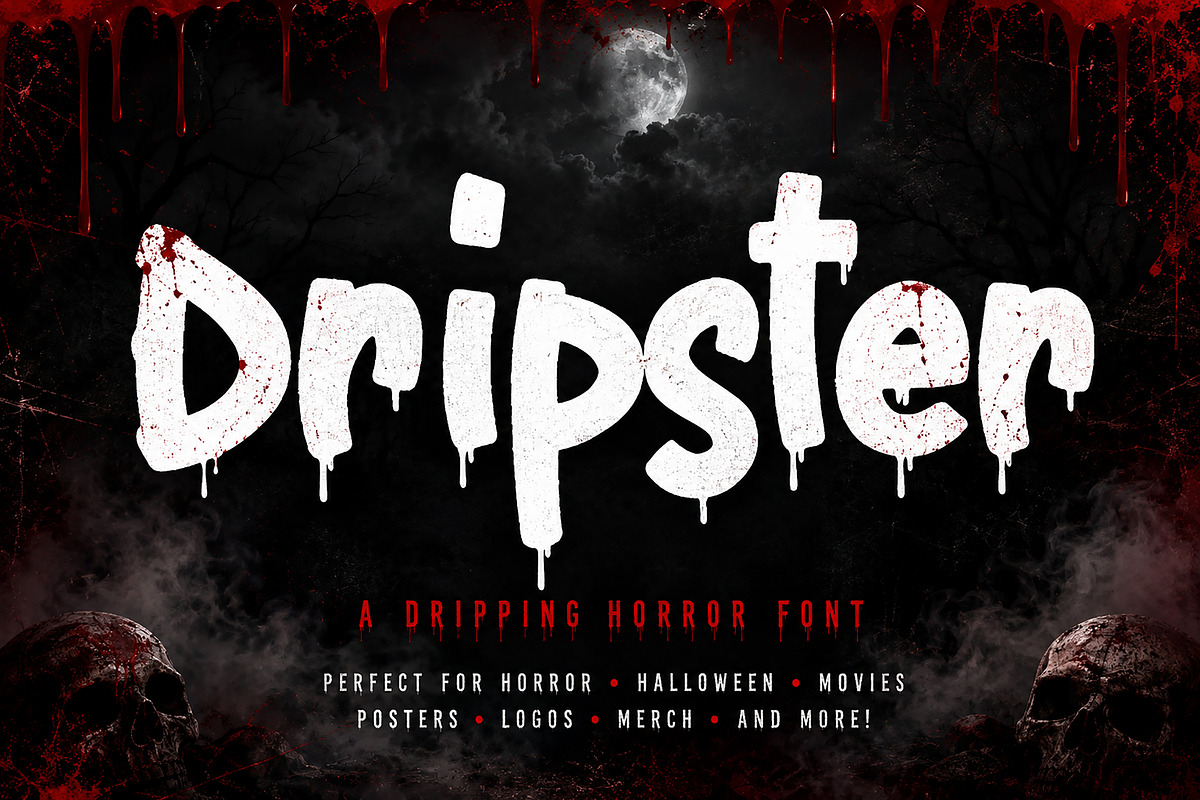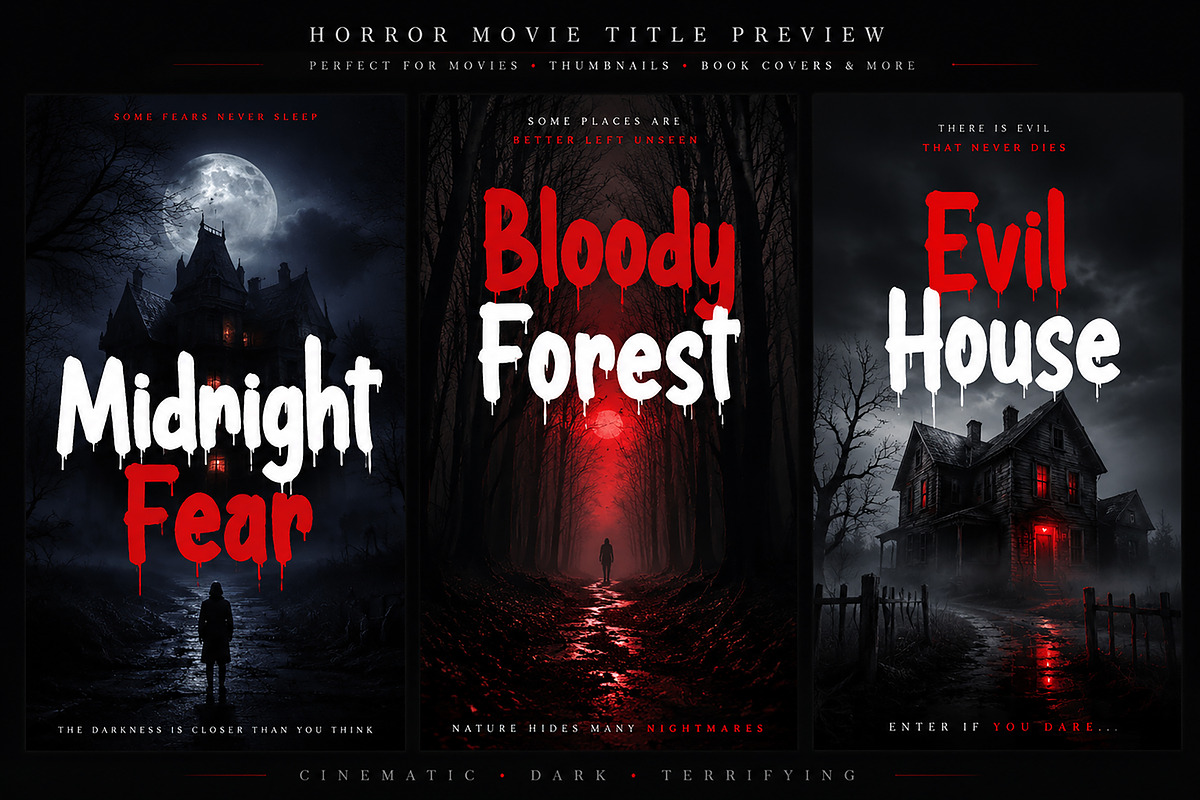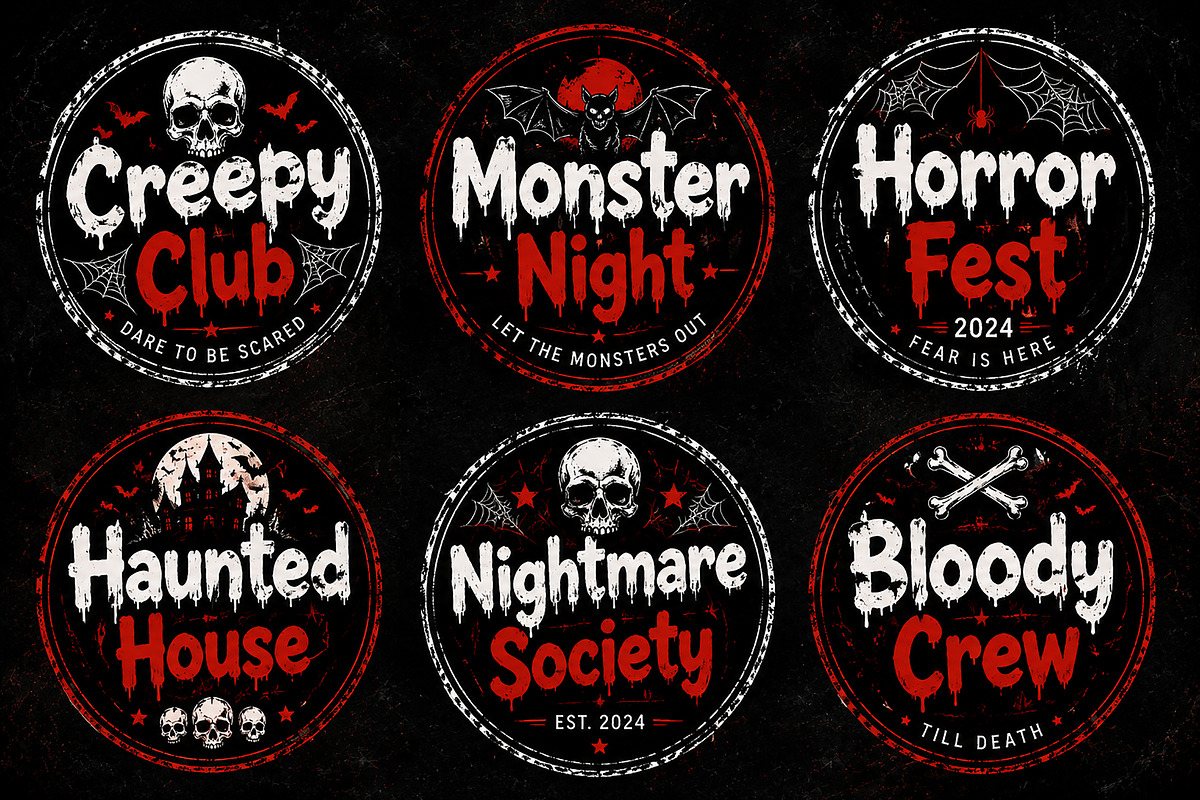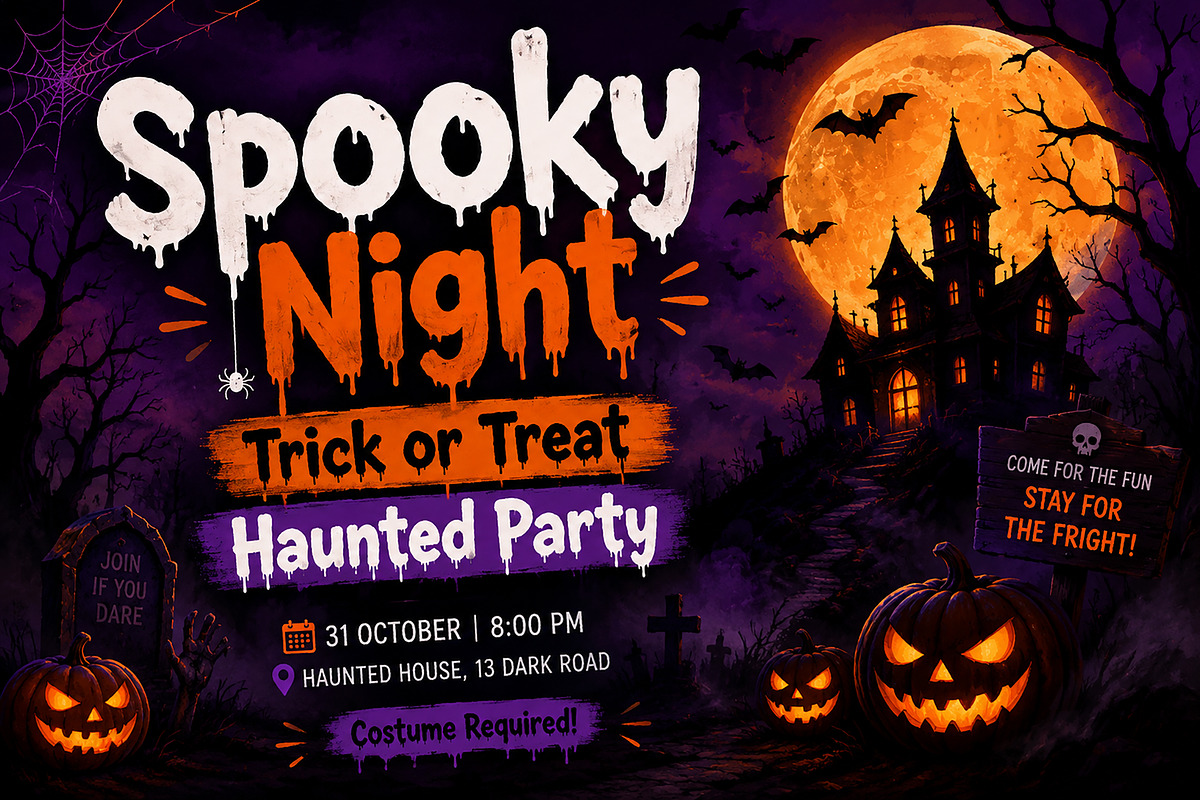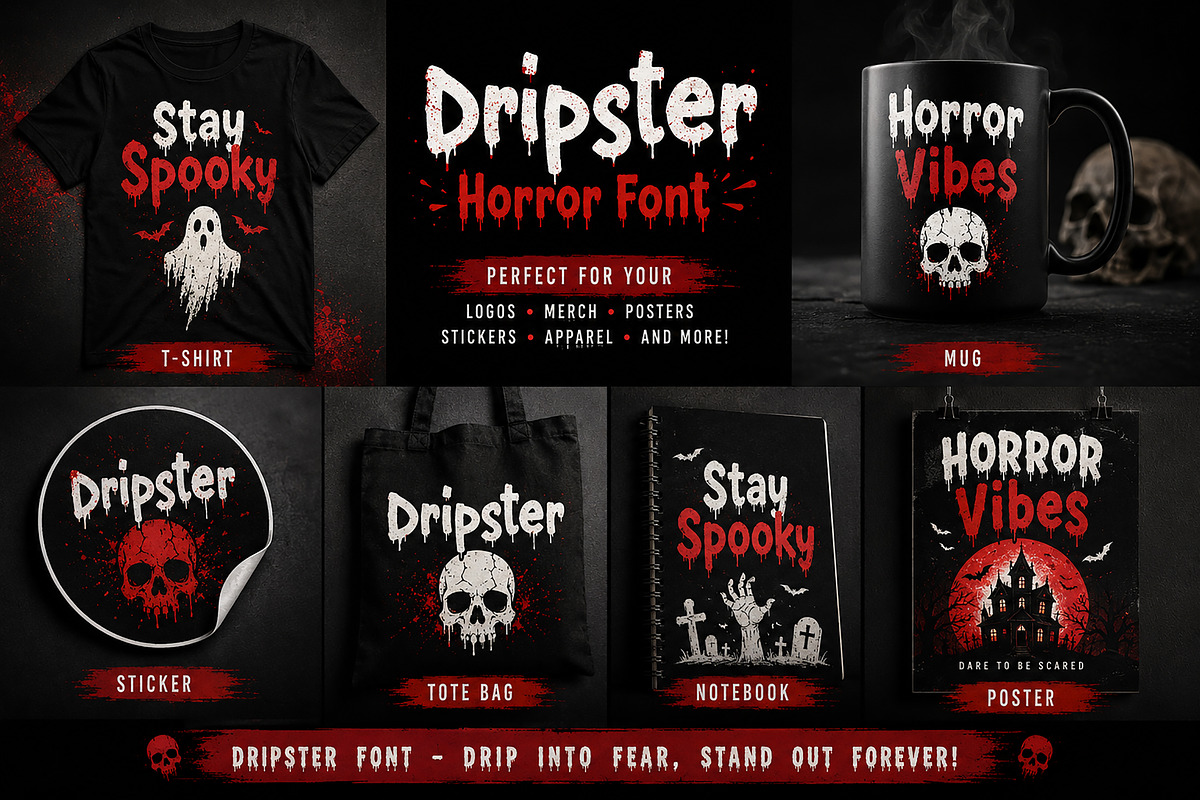
Dripster
Dripster – Horror Dripping Display Font
Dripster is a bold and terrifying horror display font featuring unique dripping letterforms inspired by blood, slime, melting wax, and classic Halloween aesthetics. Designed to create an instant spooky atmosphere, this font is perfect for horror-themed projects, Halloween branding, movie posters, book covers, YouTube thumbnails, merchandise, stickers, logos, and creepy event promotions.
With its hand-crafted dripping details and bold character shapes, Dripster delivers a chilling visual impact while maintaining excellent readability. Whether you're designing a haunted house flyer, a scary game title, a horror logo, or a spooky social media graphic, Dripster will make your text stand out with a frightening and unforgettable look.
Horror Movie Titles
Halloween Posters
Haunted House Promotions
YouTube Thumbnails
Horror Book Covers
Game Titles
Merchandise Design
T-Shirts & Apparel
Stickers & Labels
Event Flyers
Cricut & Craft Projects
Bring your darkest ideas to life with Dripster, the ultimate dripping horror font for spooky and terrifying designs.